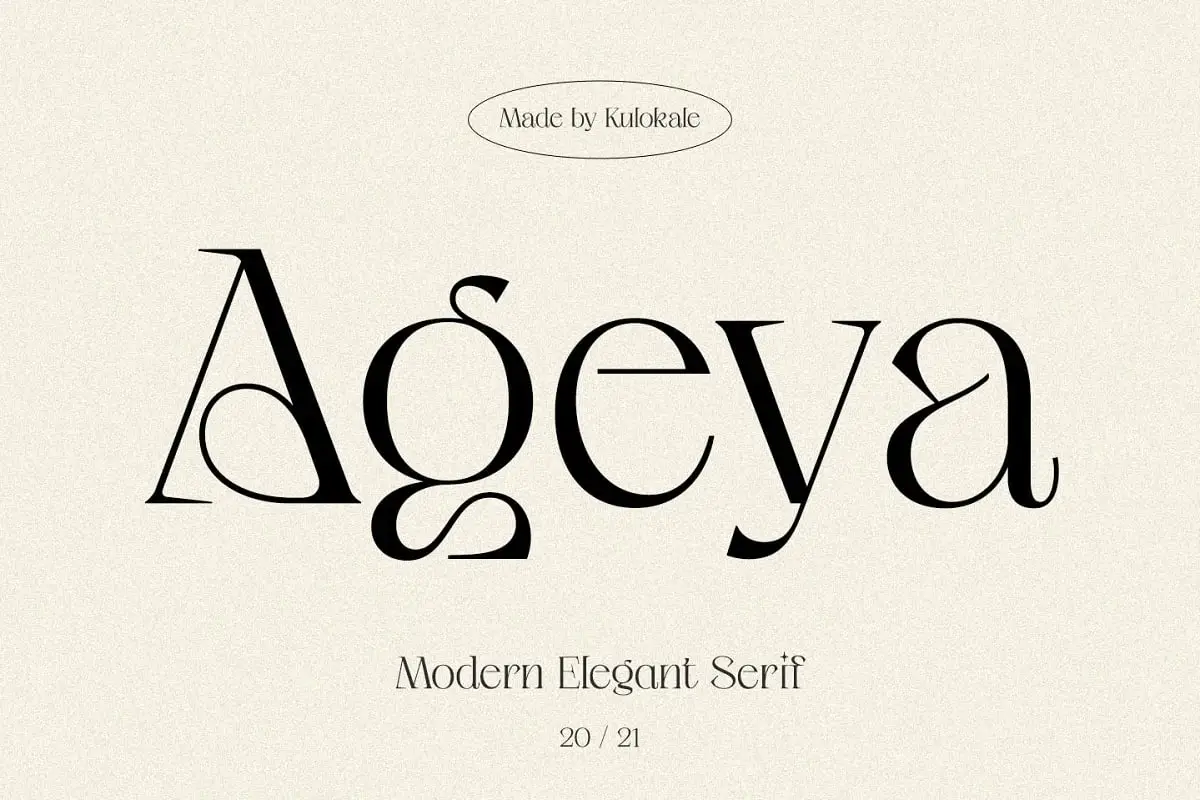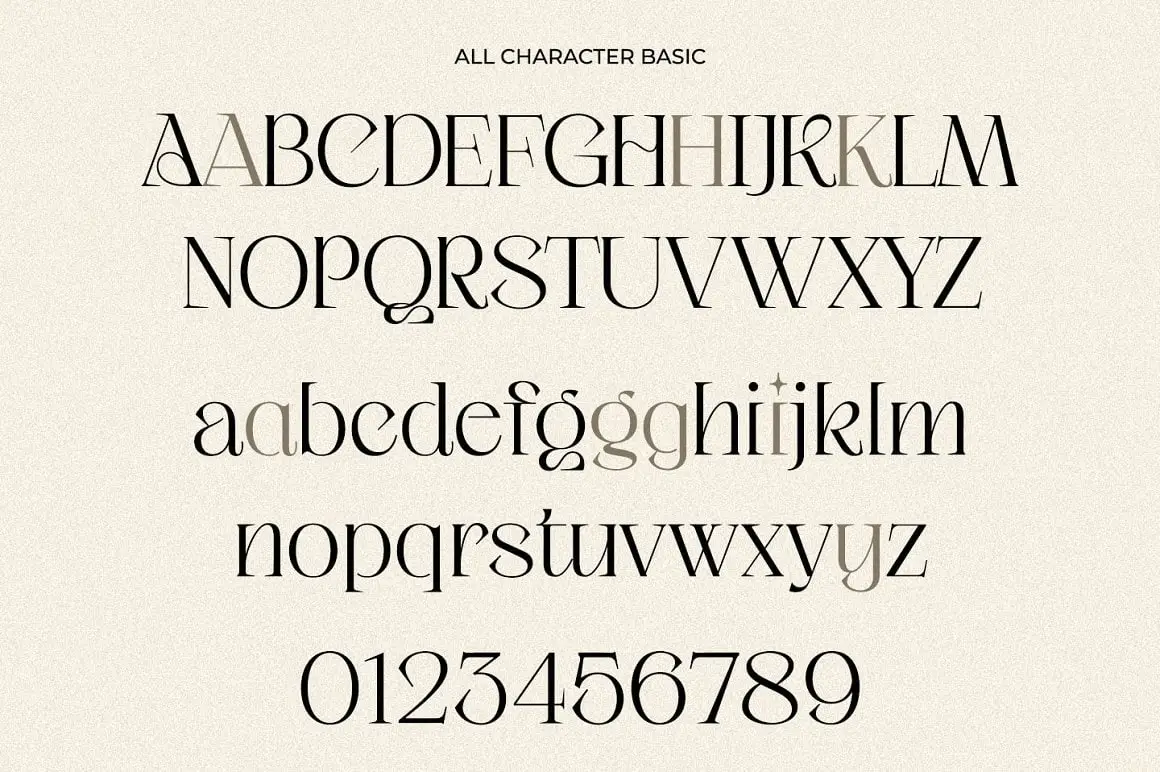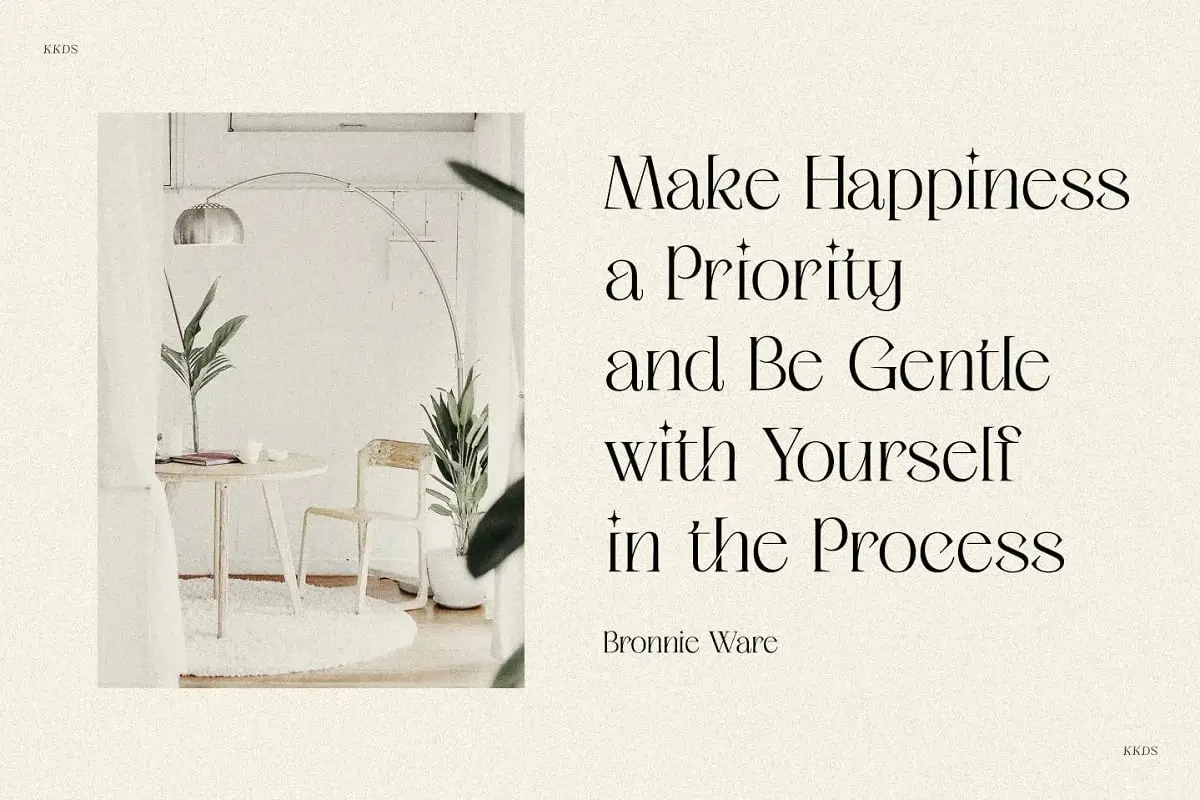
Ageya-Modern Elegant Serif Font By Kulokale
Introducing the Ageya modern elegant serif font, crafted by Kulokale. This font is perfect for those looking to add a touch of sophistication to their designs. With its clean lines and stylish curves, Ageya is ideal for branding, logos, web design, print materials, and user interfaces.
• Weights: Light, Regular, Bold
• Utilize Ageya for elegant invitations and greeting cards.
• Incorporate it into your website for a refined look.
• Use it for branding projects to convey a modern yet classic feel.